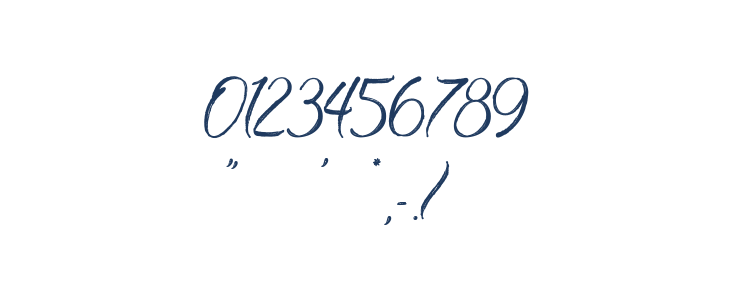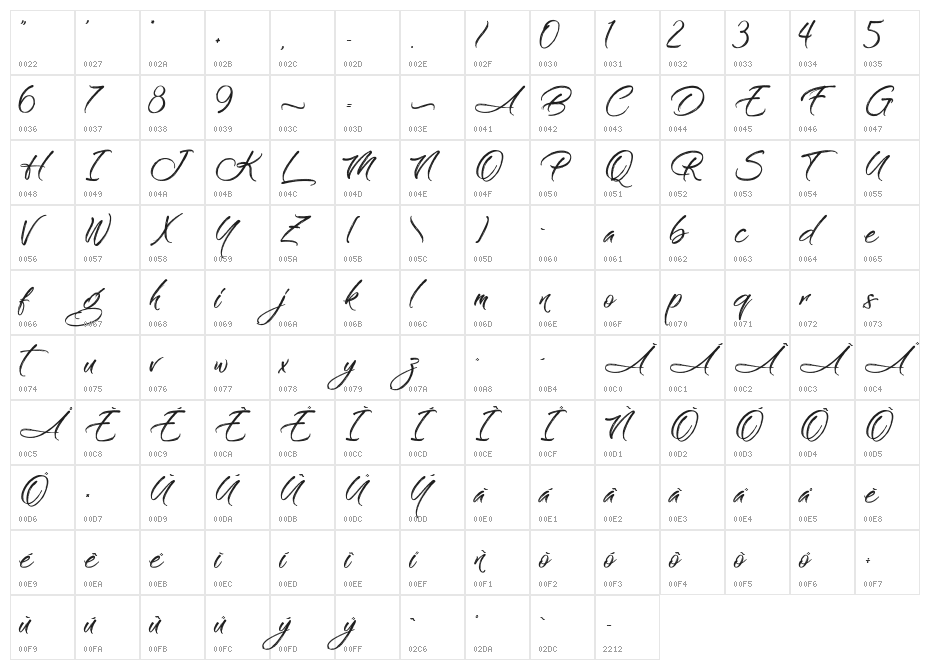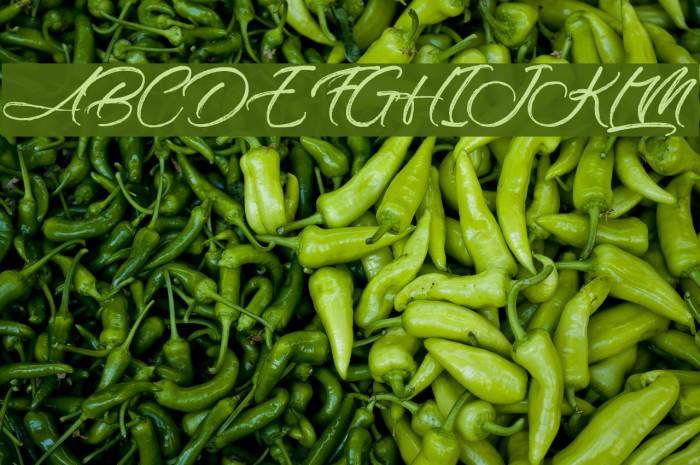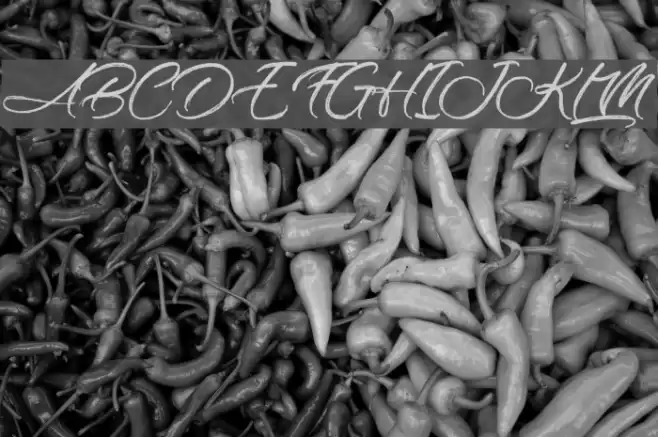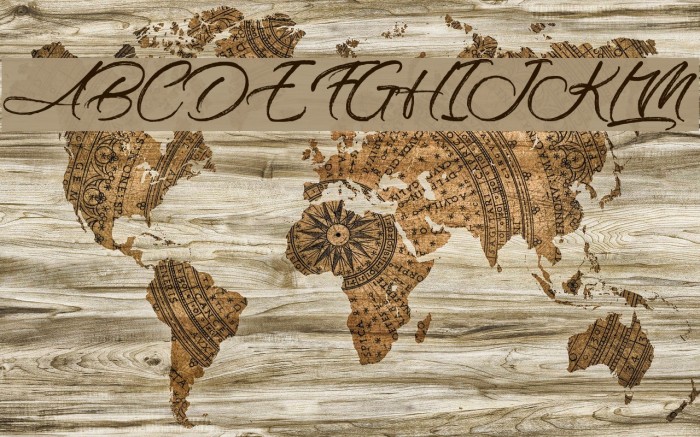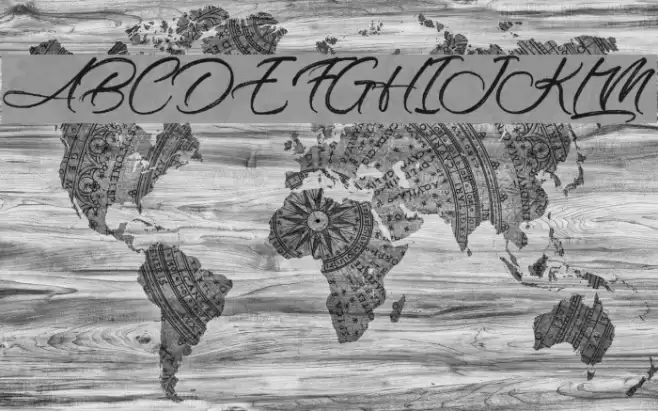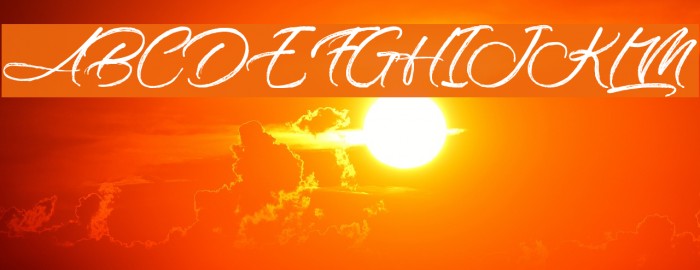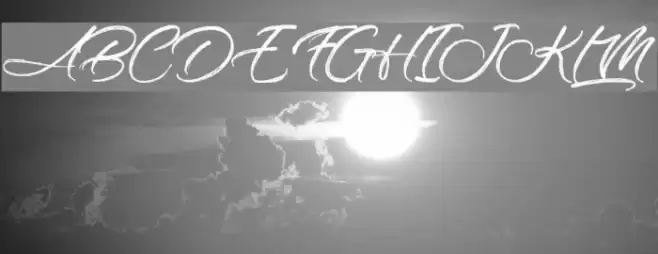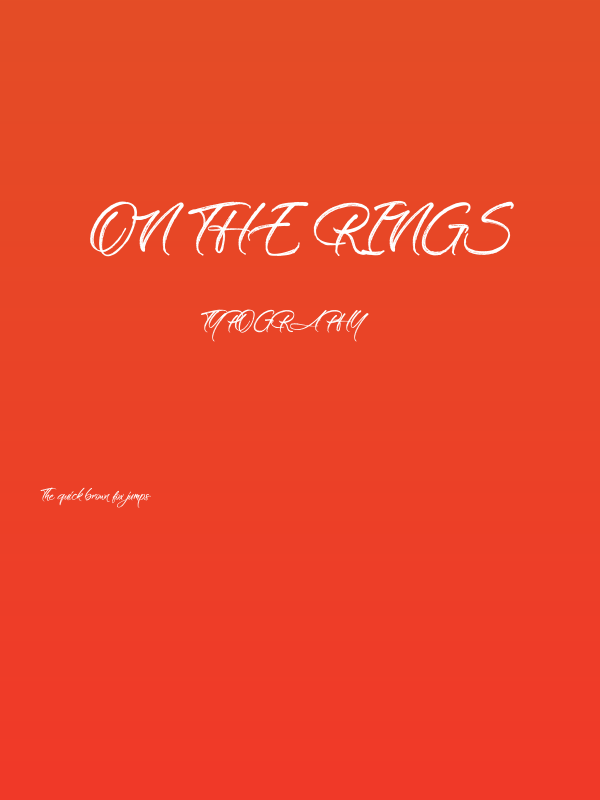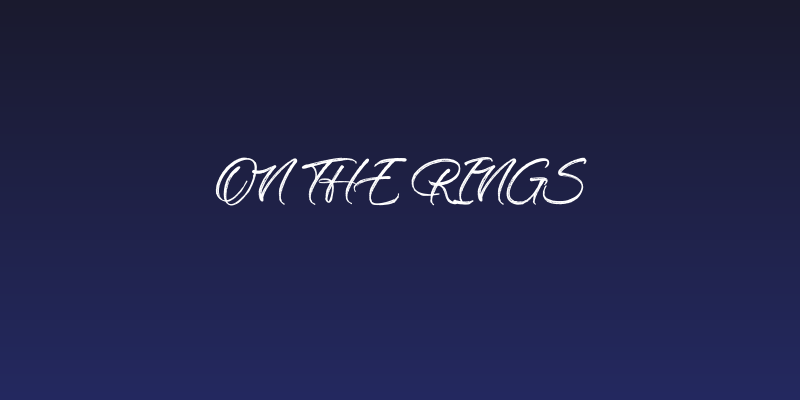
On the Rings Font
On the Rings Description
This font is a dynamic and expressive script style, characterized by its fluid and elegant strokes. The letters are interconnected, creating a sense of flow and movement. The uppercase letters are bold and sweeping, with dramatic flourishes that add a touch of sophistication. The lowercase letters maintain a consistent rhythm, with some letters featuring loops and curls that enhance the overall aesthetic. The numerals are distinct yet harmonious with the letterforms, maintaining the same fluidity. Special characters are crafted with the same attention to detail, ensuring they blend seamlessly with the rest of the font.
| Overall Style | Elegant and Artistic |
| Use Case | Logos, Invitations, Artistic Projects |
| Proposed Projects | Ideal for wedding invitations, elegant branding, greeting cards, and artistic projects that require a personal touch. |